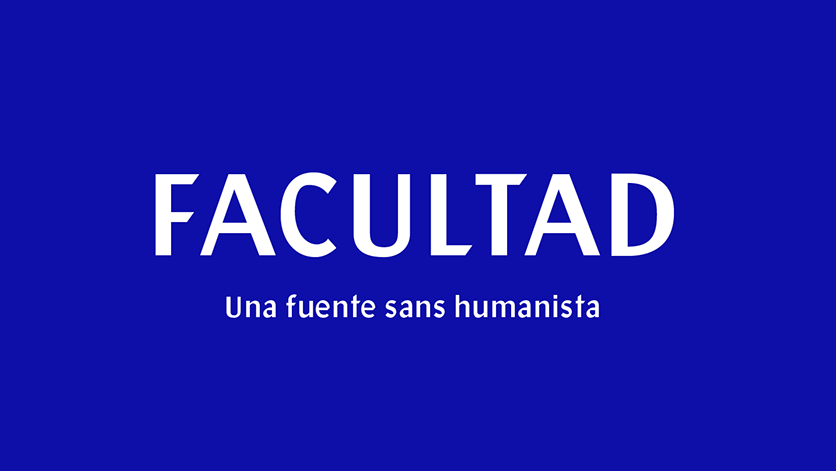
Facultad Typeface
Continue to be a new free font. Designed and shared by Andrés Torres. A designer from Cuenca, Ecuador. Introducing Facultad! This project focuses on the design of an institutional typeface by using analog and digital methods, the morphological exploration of signs and modern structures and based on classic lines to generate a proposal that will be used in headlines by the Faculty of Arts of the University of Cuenca, Ecuador.
The methodology was based on the approach proposed by Karen Cheng in her book “Designing type” with some adjustments made to optimize working time. The regular version of Facultad is a project developed as a baseline for the creation of a type family that includes several weights and variants.
Facultad Sans Serif Typeface